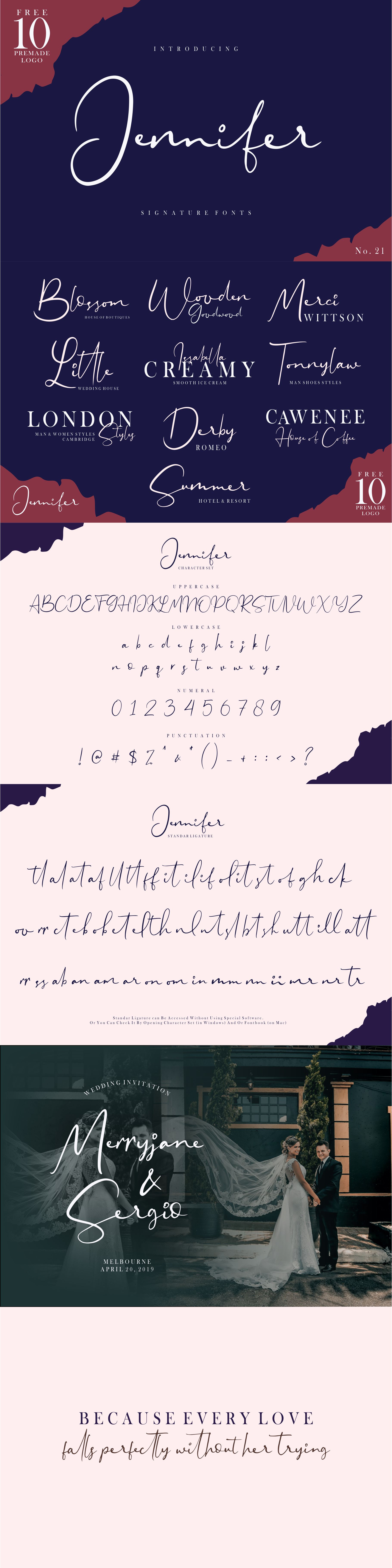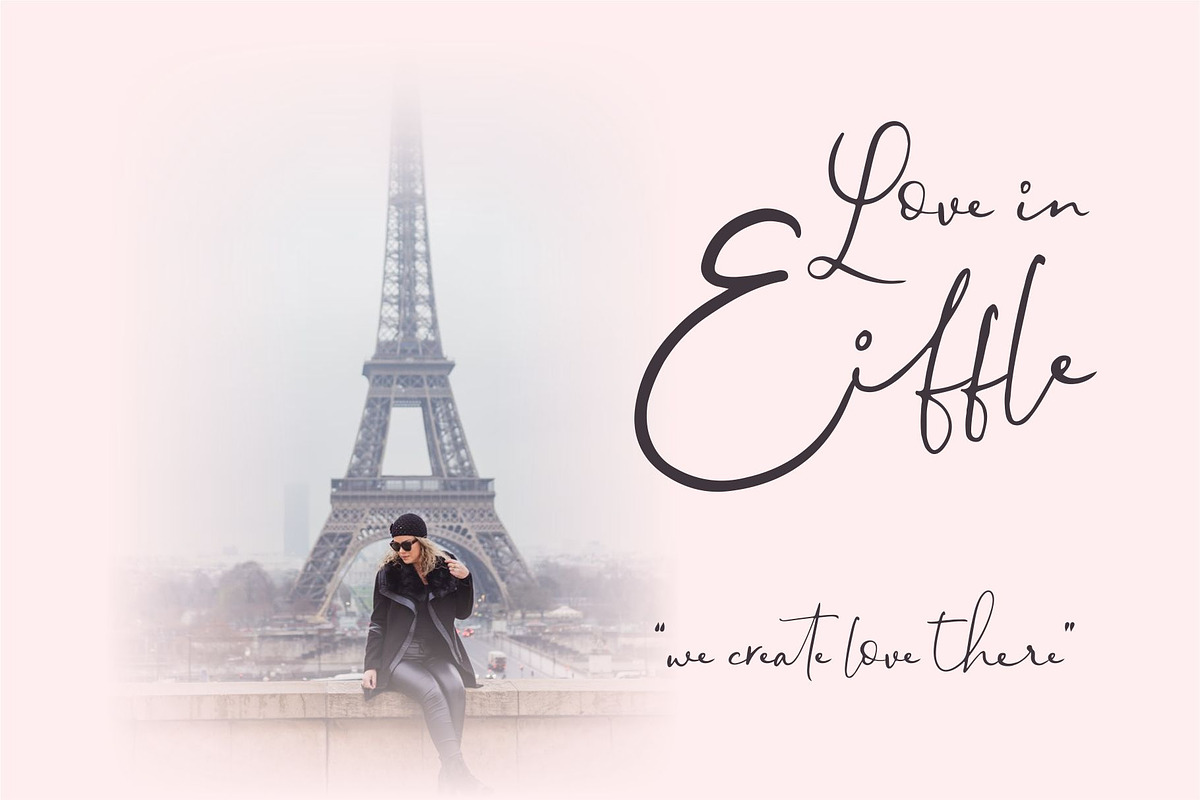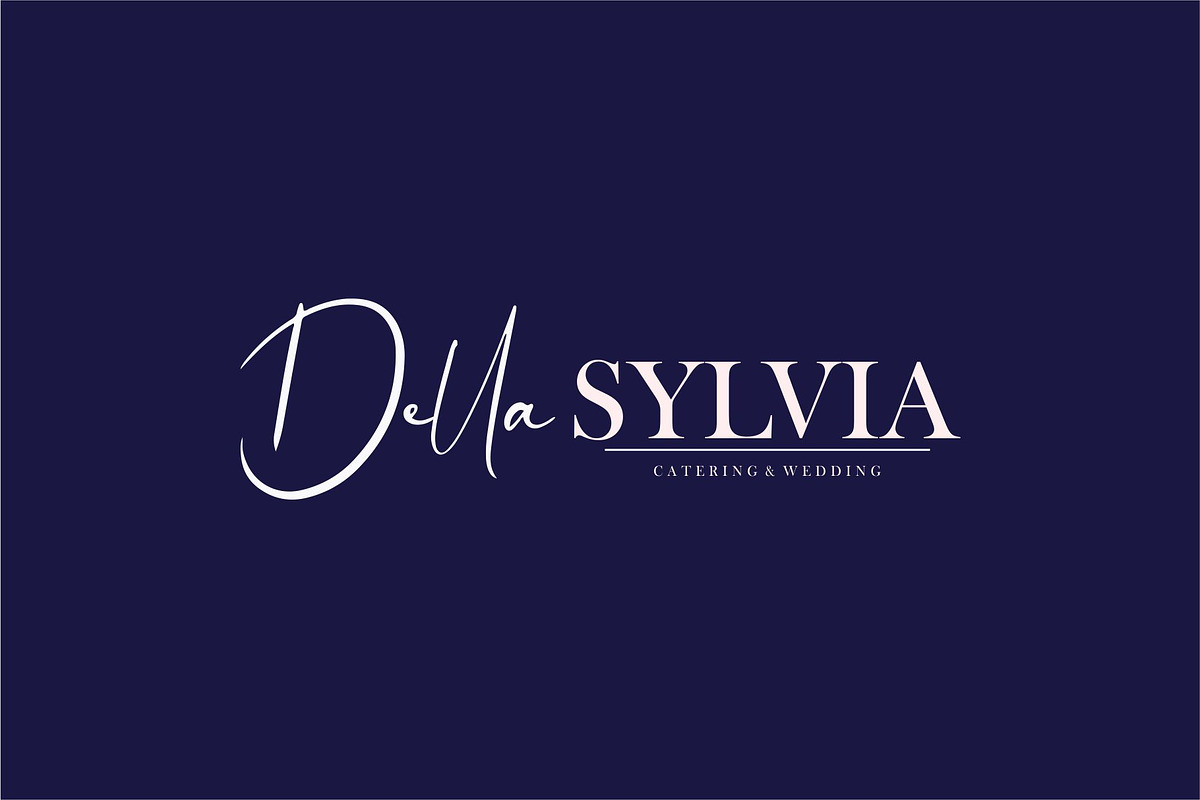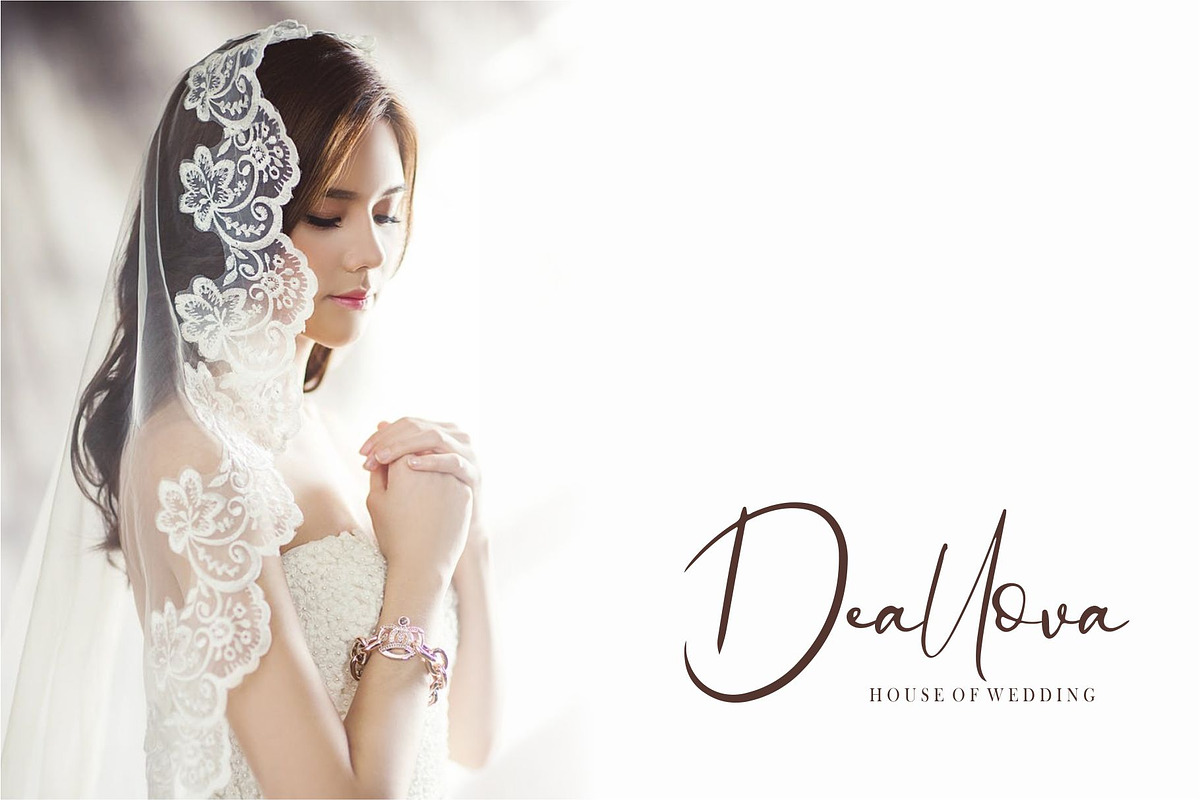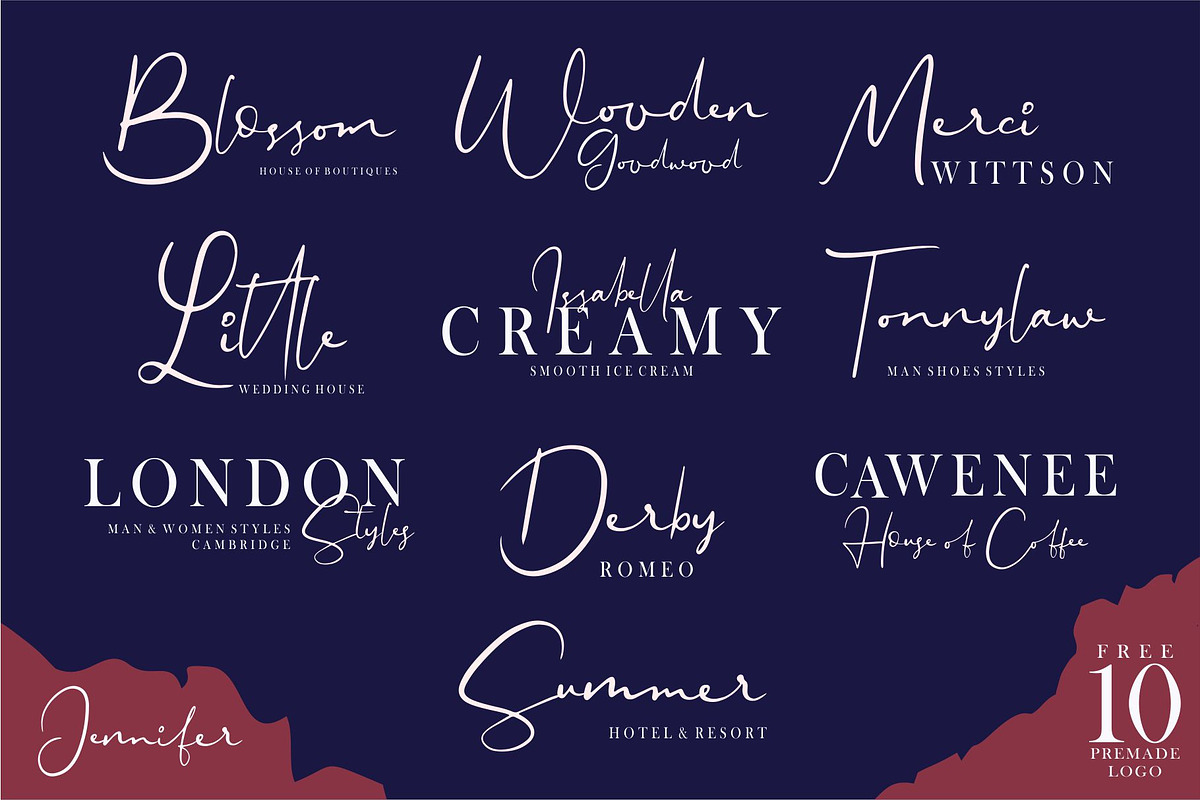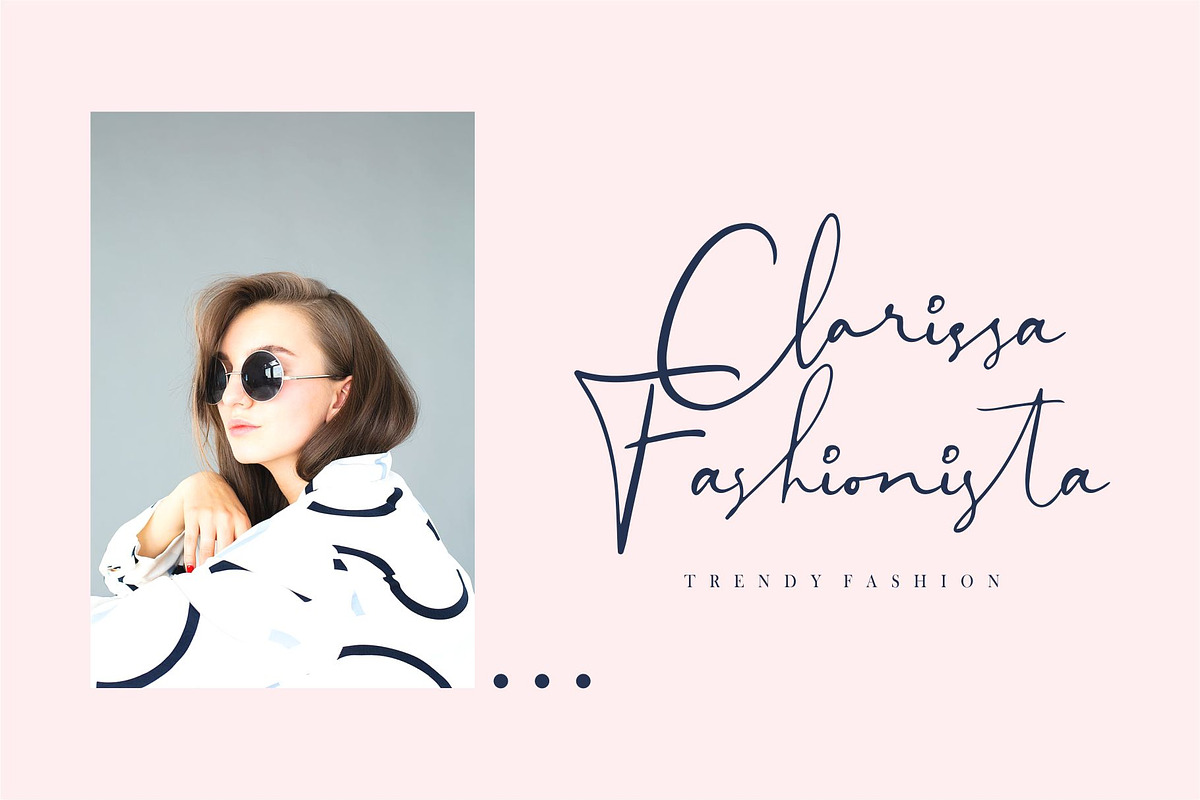
Jennifer Signature Fonts [+Logo]
Jennifer - signature font is a natural & modern handwritten font. I'ts Perfect for logo, invitation, stationery, wedding designs, social media posts, advertisements, product packaging, product designs, label, photography, watermark, special events or anything. This font include : Jennifer OTF-TTF-WOFF, 48 Standar Ligatures, and also Multilingual support.
What's Advantages Jennifer?
- Very great for branding, logotype, handletteing, invitations, or fashion branding.